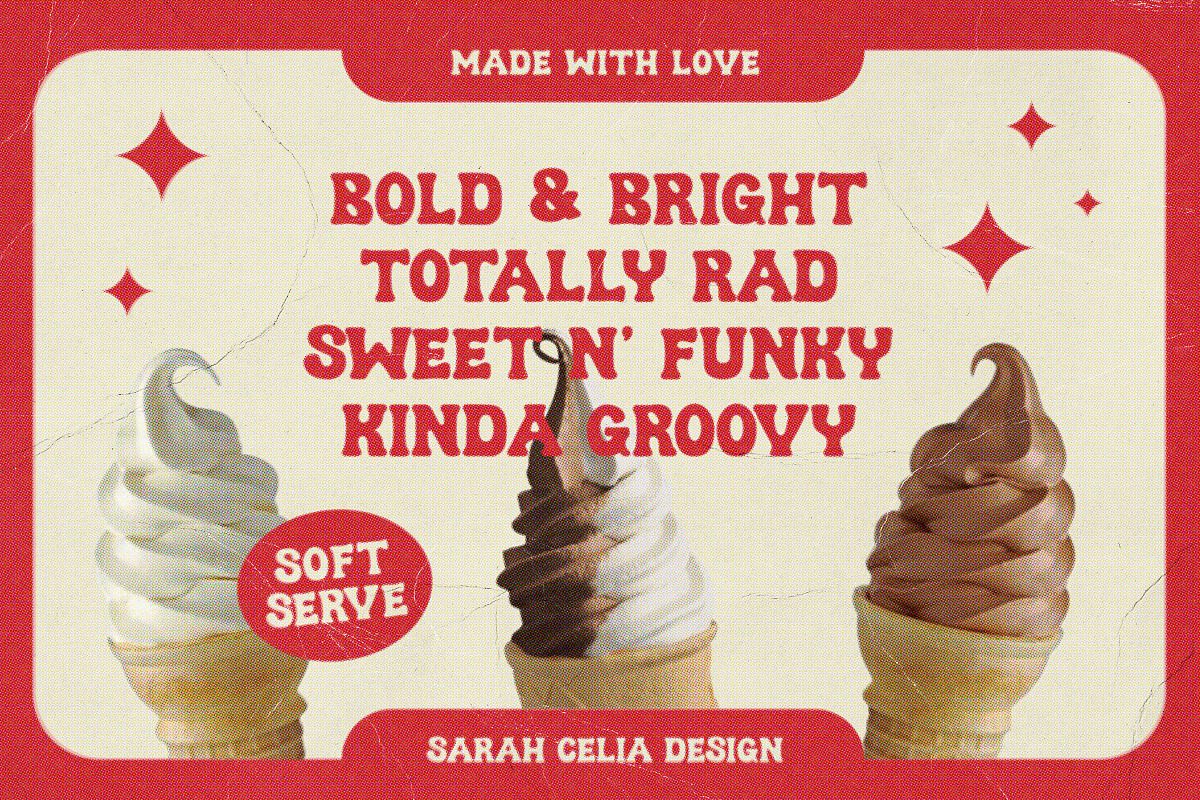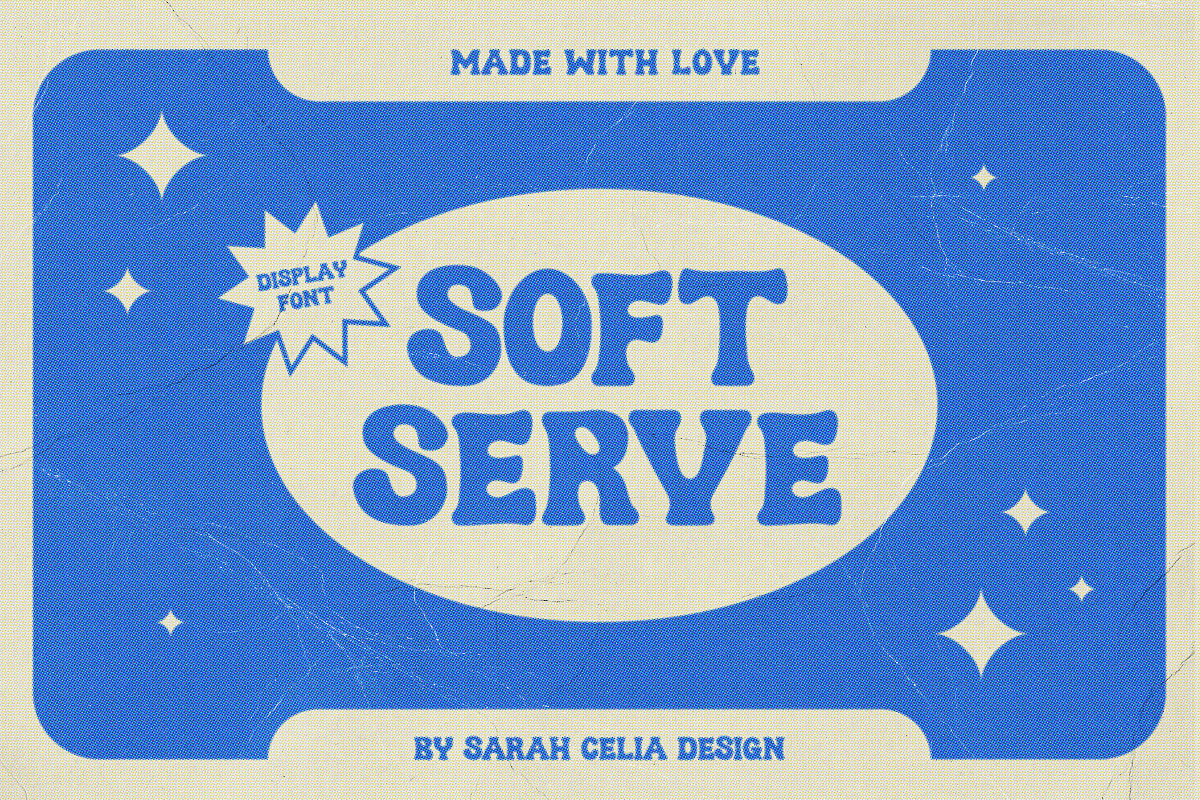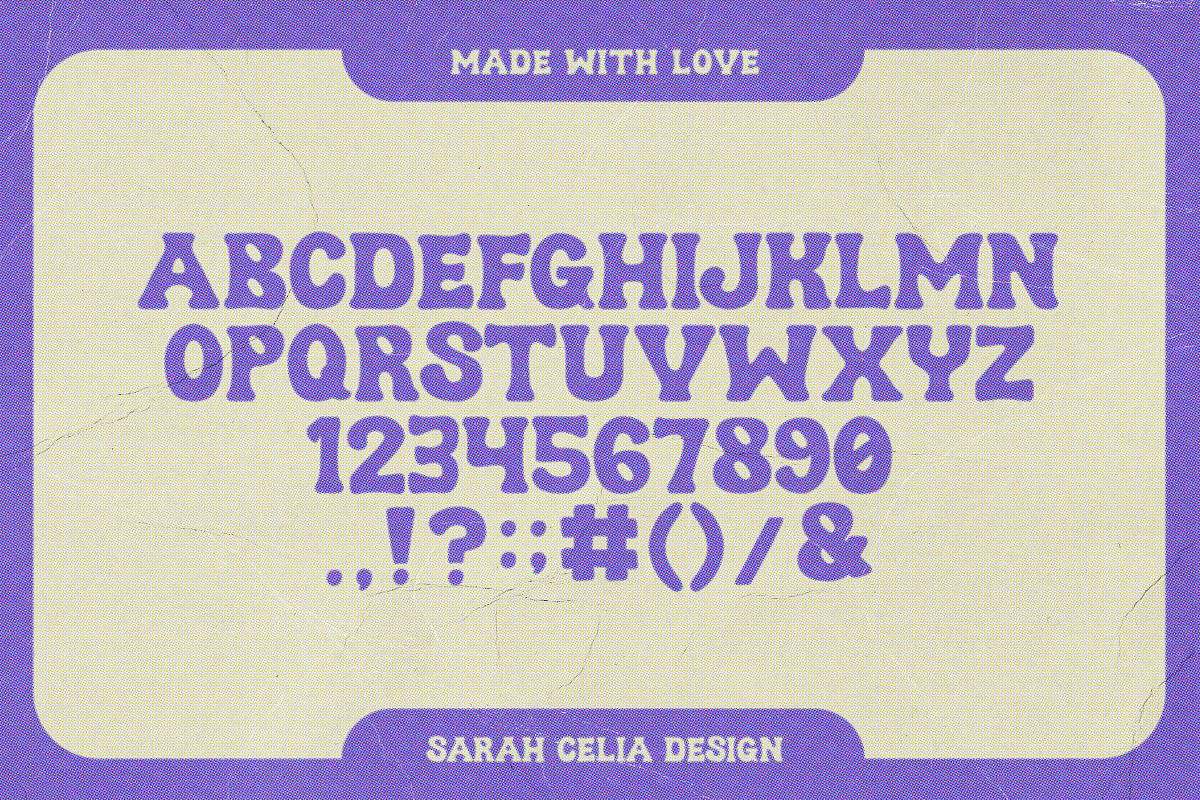
Soft Serve Retro Display Font
Soft Serve is bold and groovy display font. Soft Serve friendly and welcoming, with big and curvy serifs and thick letterforms, perfect for adding a bright and kinda vintage flare to any design project. This font will be great as a memorable logotype or an impactful headline font grabbing attention from everyone.